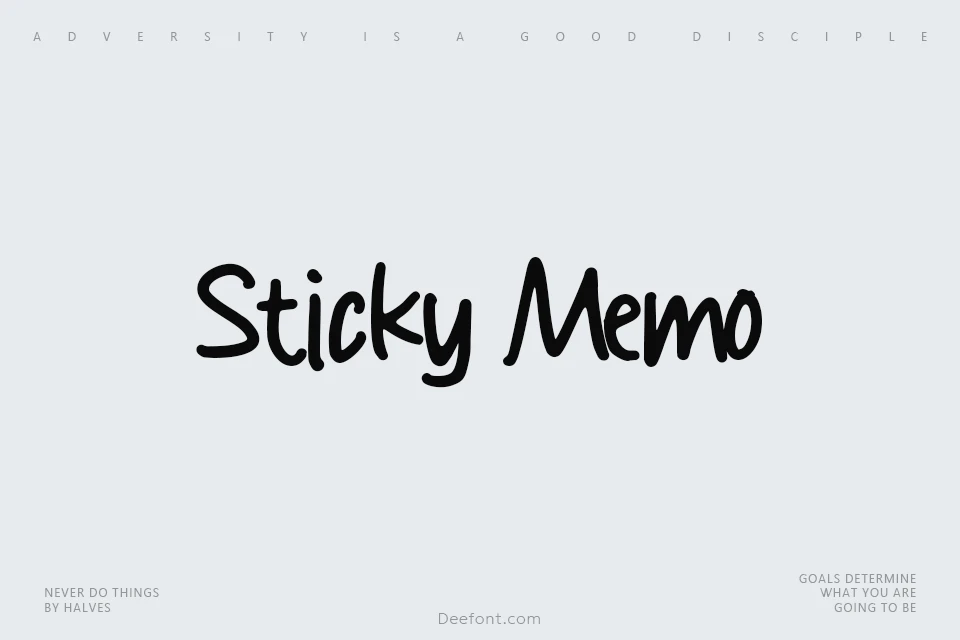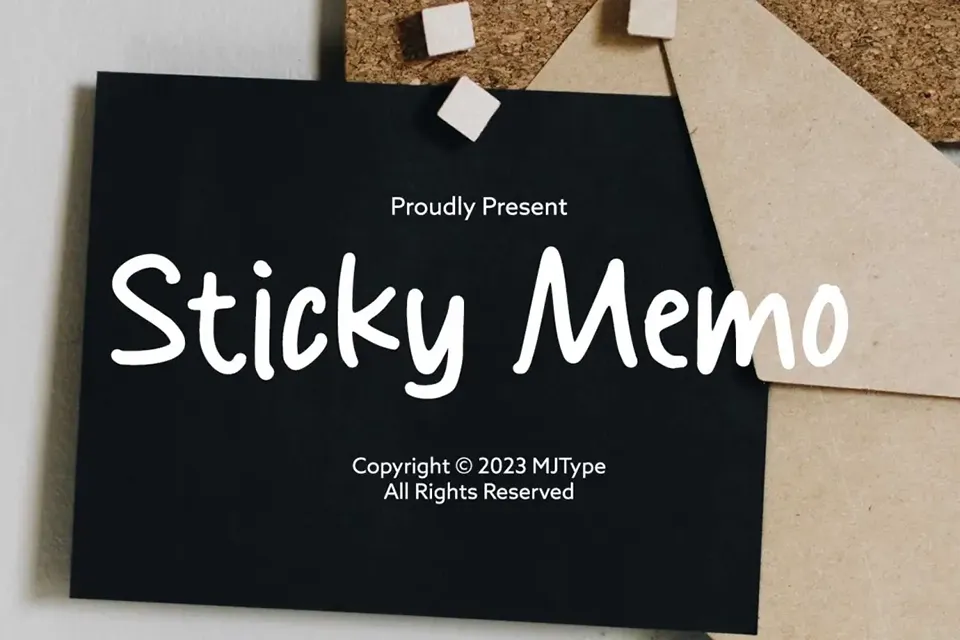
Sticky Memo Font
Sticky Memo Font is a casual handwritten typeface that captures the spontaneous charm of quick notes and playful doodles. Its carefree strokes and charming irregularities infuse personality into any project, making it ideal for personalized stationery, creative branding, and designs seeking authenticity. With an organic appeal, Sticky Memo evokes warmth and approachability, ensuring your message stands out with a genuine, handcrafted feel. Versatile and inviting, this font effortlessly adds a whimsical yet professional touch, perfect for projects needing a unique blend of creativity and friendliness.